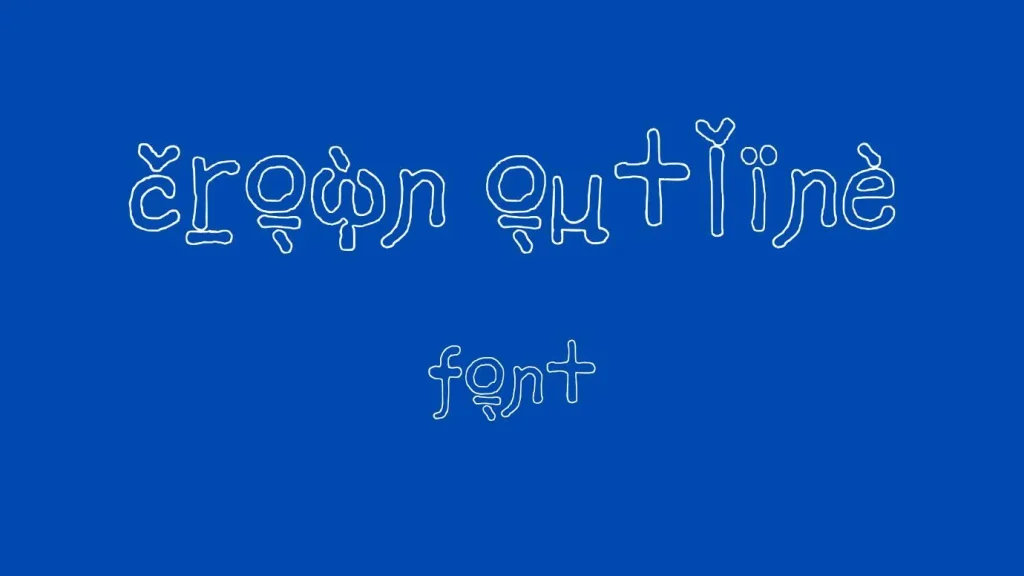
This text style is interesting since it offers your projects a more elegant and beautiful appearance. The typeface may be used to create exciting designs,
This text style is interesting since it offers your projects a more elegant and beautiful appearance. The typeface may be used to create exciting designs, books, company titles, and logos.
It is the most well-known typeface used by web designers and graphic artists. It has a stylish, contemporary style and creates unique designs.
Crown Outline Font Preview
Aesthetic Design Feature
This writing style is suitable for video games, visual editing, and logo designs, among other things. This type of textual style may be used to conduct an attractive, in-depth analysis of your content and strategy. This text style is used by visual developers because of its attractive appearance.
The text style is appropriate for logo designs and real-world movie titles. Additionally, it is helpful for game planning. You can use this text style to create, banners, gift cards, and covers for digital books.
For website designing, blogging, and many other related planning purposes, this stunning text style is ideal.
Countless designers use this design for their professional and personal projects. The typography is ideal for activities, invitations, publications, and corporate substance. Characteristics of Crown Outline Font
Any project extension that requires a sophisticated and contemporary design may find text style to be a fantastic option. Graphic layouts, blogs, and trademarks serve as its climax.
The usual weight is best for the main text, while it is suitable for usage in headers and captions. You may utilize the 65 distinctive glyphs in this letter-style design to produce visually outstanding project designs. Additionally, it has 218 pairs of letters that include both uppercase and small letters.
This typeface type design has been used by several well-known publications for their texts, headers, and subheadings. With this font design, creative styles can be created with high-caliber content.
It may be a tool that helps a client turn their plain text into a unique design, making a real difference for the viewer.